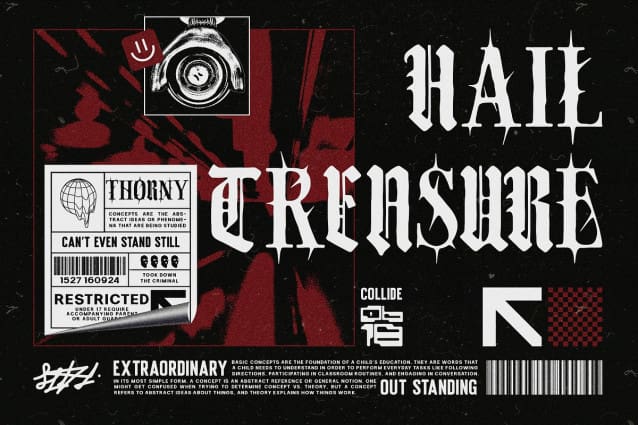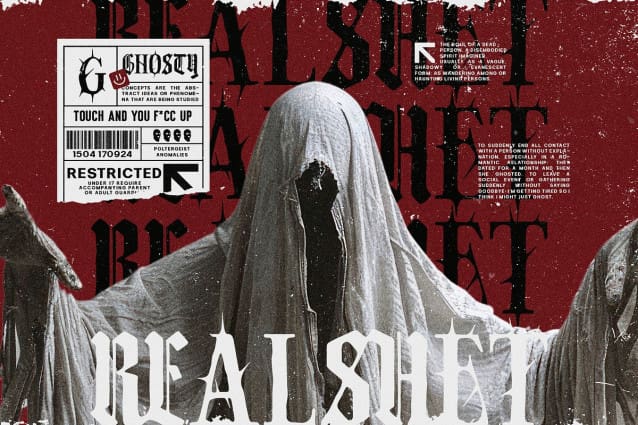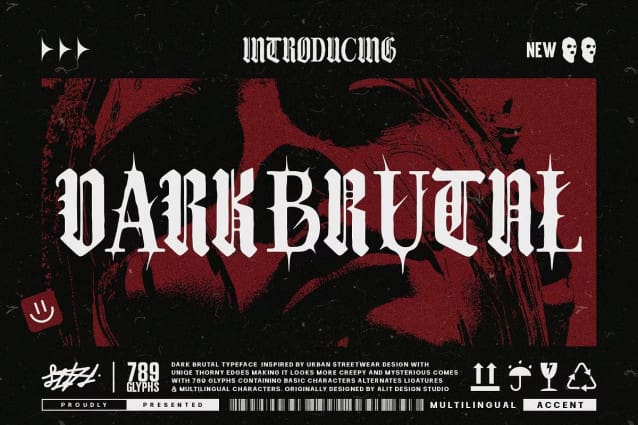
Dark Brutal Font
Dark Brutal Font, a powerful and unapologetically rugged blackletter font crafted for those who embrace the intensity of bold design. This font embodies the spirit of rebellion with its sharp edges, distressed strokes, and dark, medieval-inspired aesthetic. Perfect for creating a fierce visual impact, it’s ideal for projects that demand attention—whether it’s in music, fashion, or alternative branding.